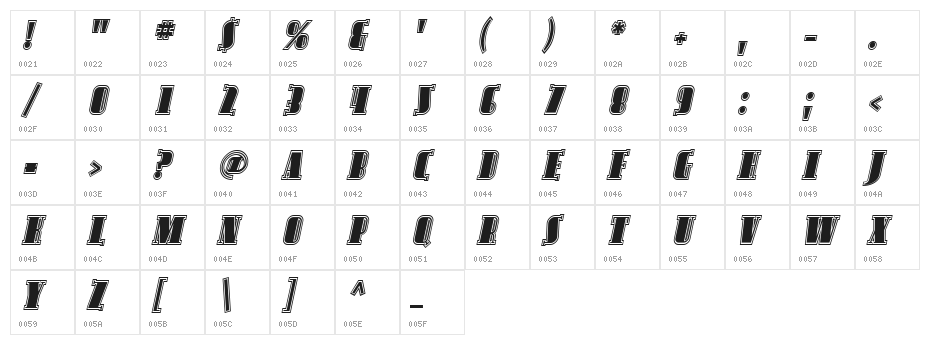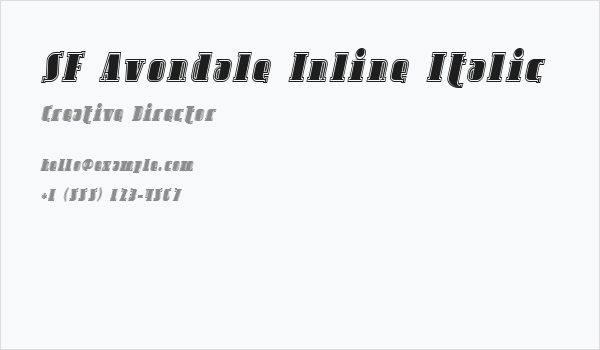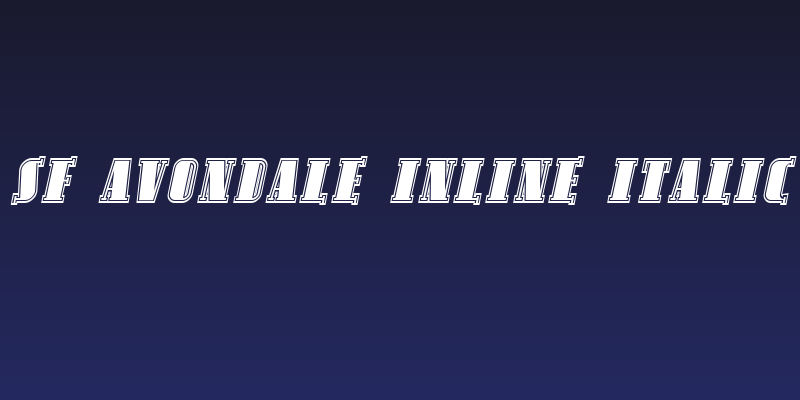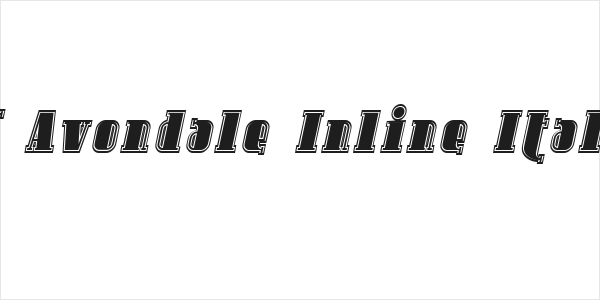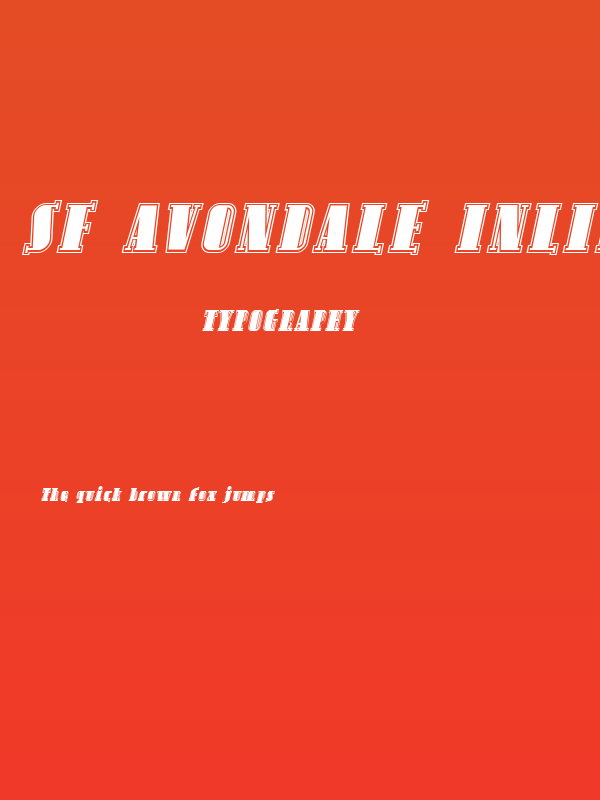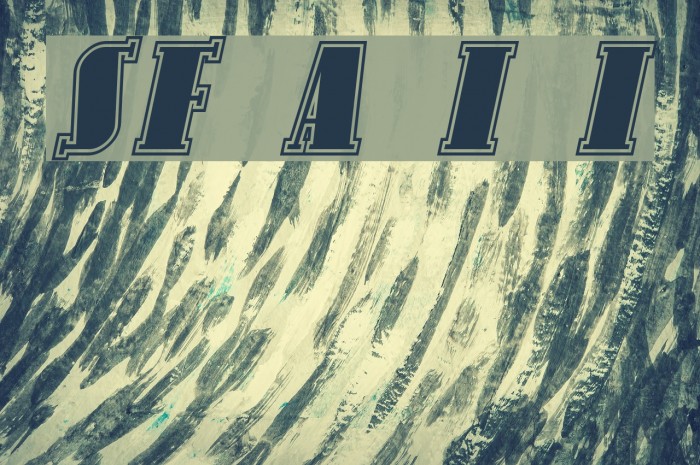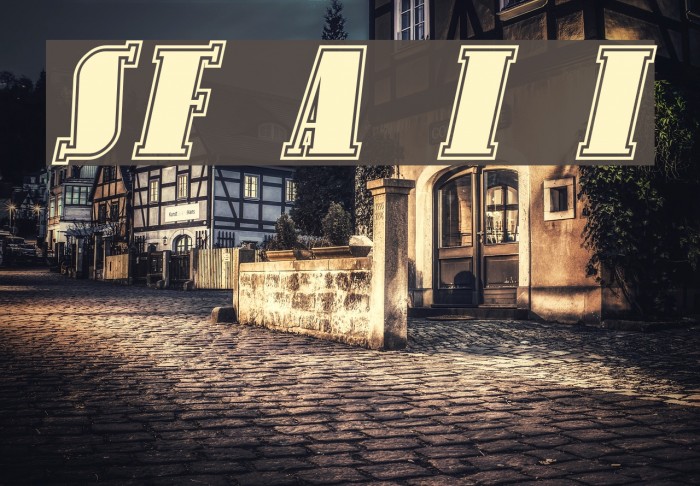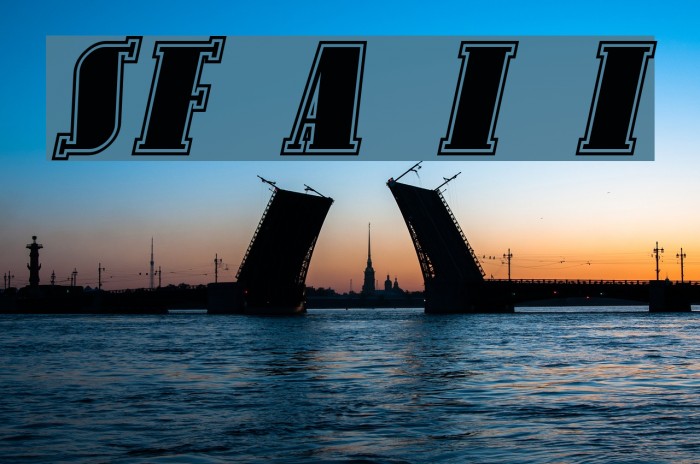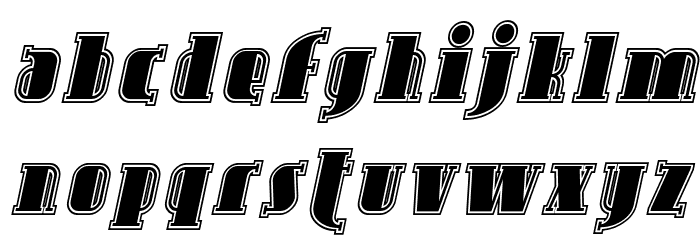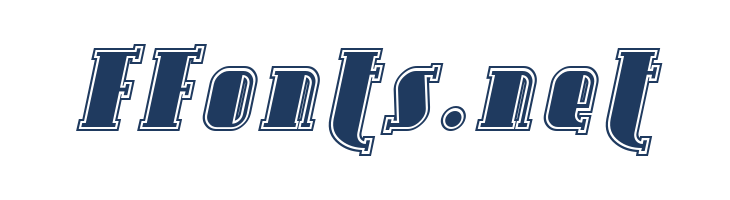
SF Avondale Inline Italic Font
This font features a bold, dynamic style with an inline design that adds depth and dimension to each character. The italicized slant gives it a sense of motion and energy, making it stand out in any design. The uppercase and lowercase letters maintain a consistent weight, with sharp angles and clean lines that contribute to its modern appeal. Numbers and special characters are equally bold and expressive, ensuring a cohesive look across all text elements. The inline detail adds a touch of sophistication, making it suitable for eye-catching headlines and titles.
| Proposed Projects | Ideal for branding, posters, headlines, and any design requiring a bold, modern touch. |